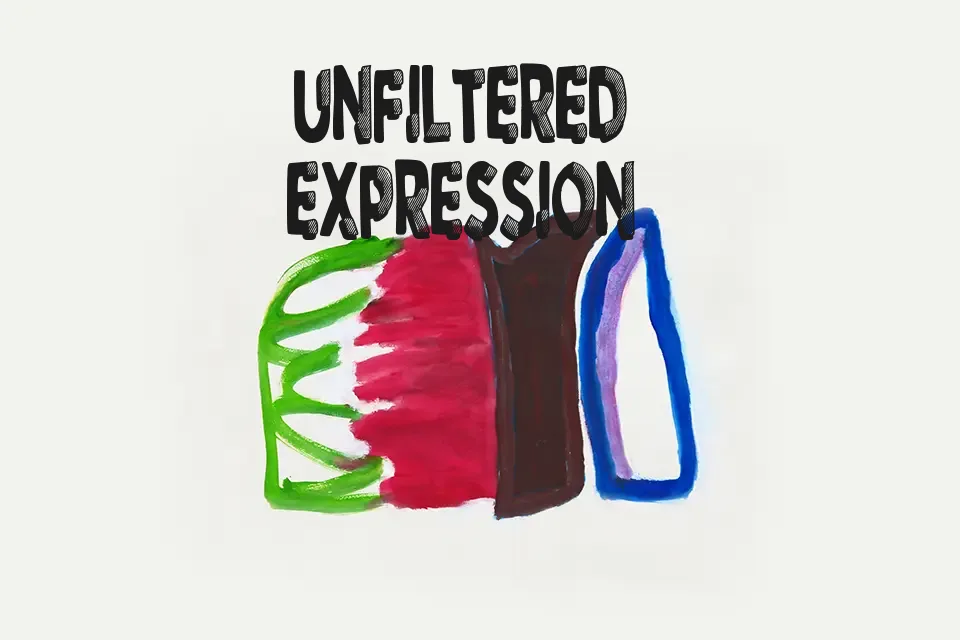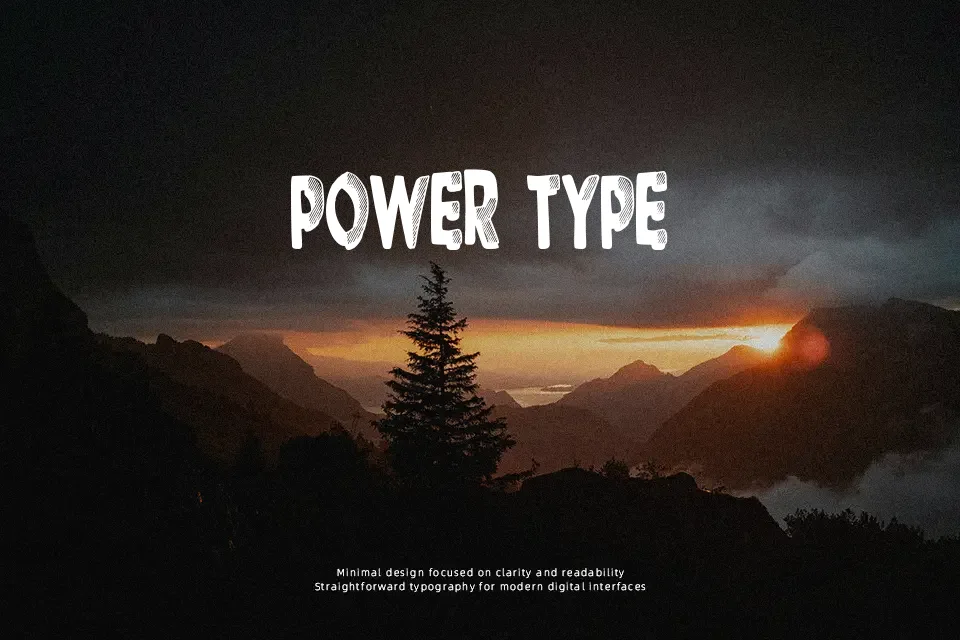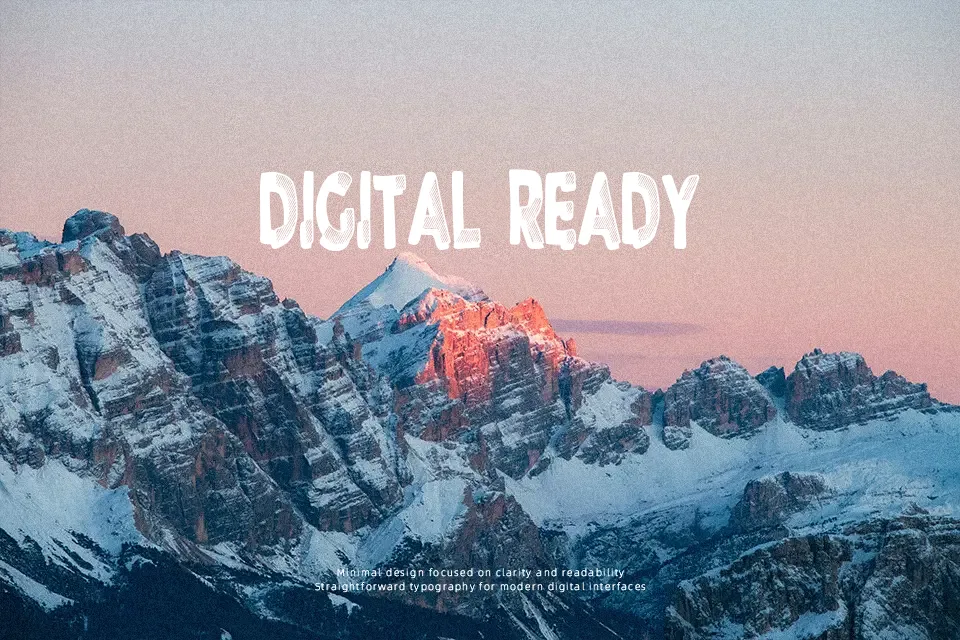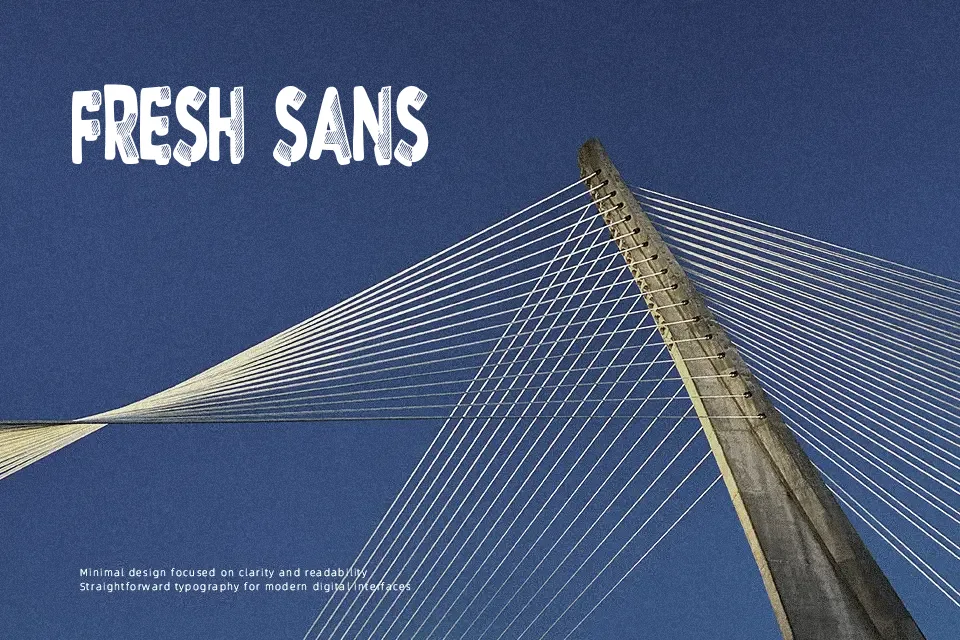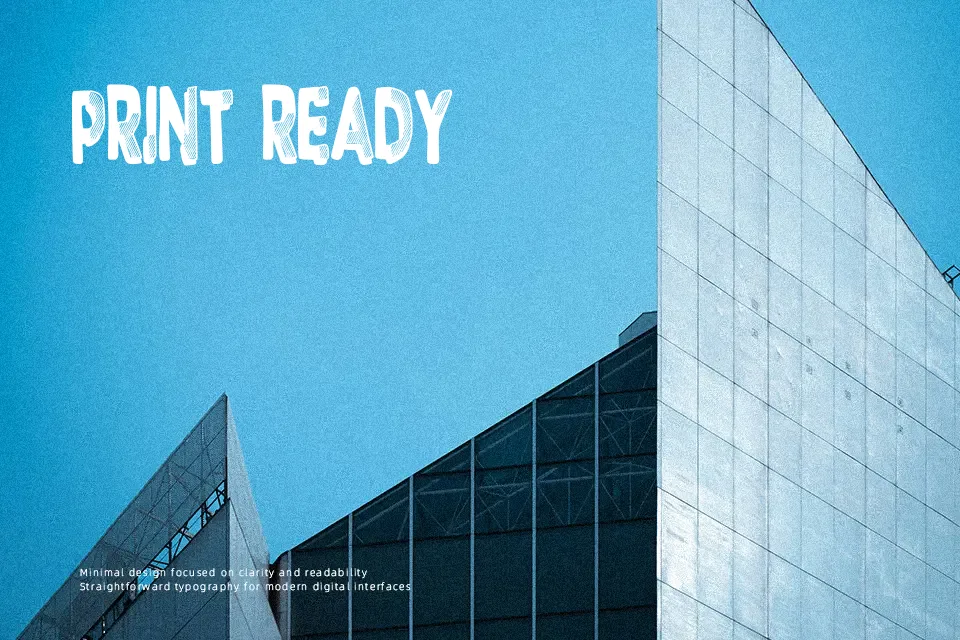
Binoculars Font
Binoculars presents a distinct visual identity through its bold, condensed structure and an eye-catching internal texture made of diagonal lines. The thick, uniform strokes give the characters a robust presence while maintaining a playful, hand-drawn aesthetic that feels approachable. This cartoonish energy shines when applied to children’s apparel designs, quirky video thumbnails, and informal event branding where fun is the primary goal. However, the heavy hatching pattern creates visual noise at smaller scales, meaning it struggles with legibility in dense paragraphs or serious corporate identities. It excels as a statement headline typeface, offering a structured yet energetic alternative to traditional comic fonts without losing its lighthearted appeal.
Playful children’s book covers, engaging social media graphics, quirky event posters, bold video thumbnails
Professional corporate branding, small body text paragraphs, minimalist user interfaces, formal wedding stationery
Perfect for headline, kids, and poster, with a bold and cartoon style.